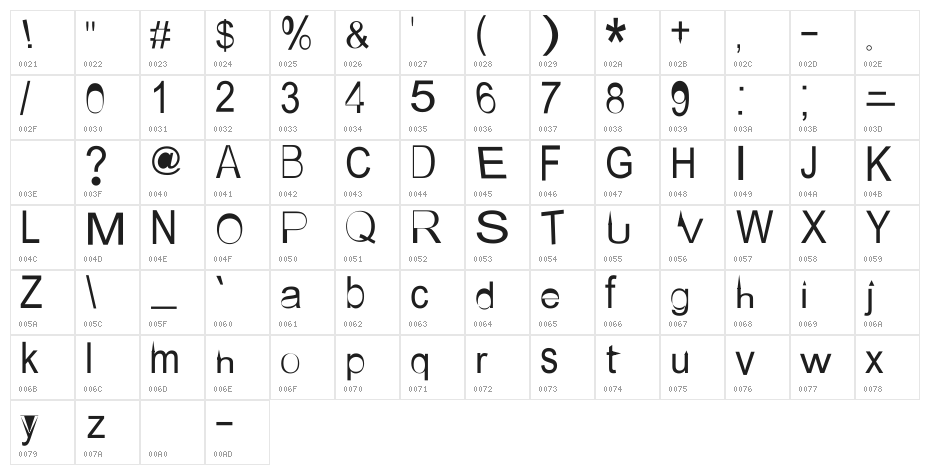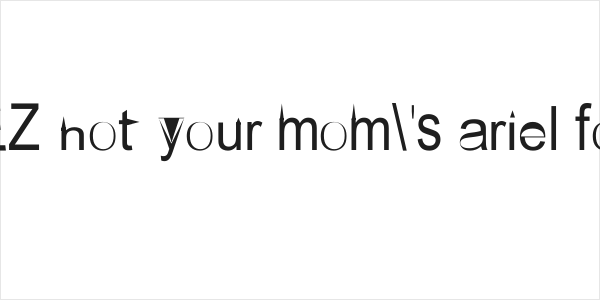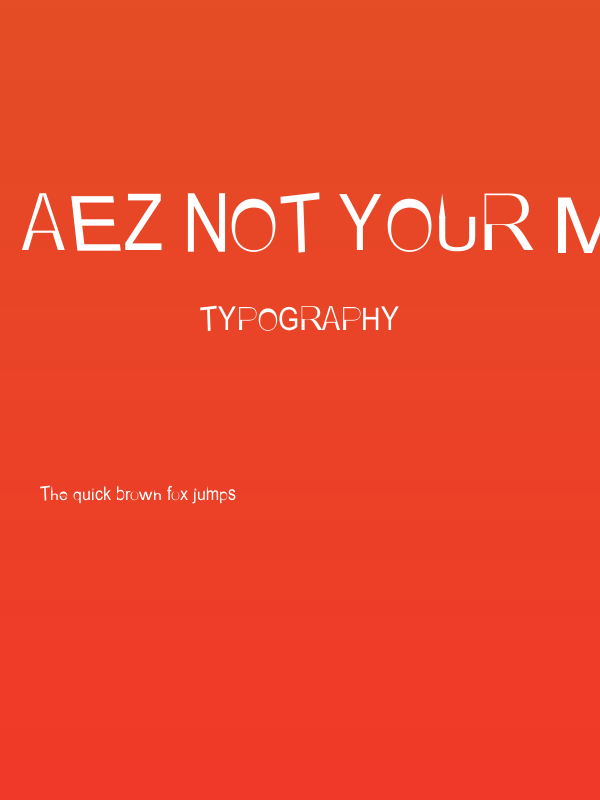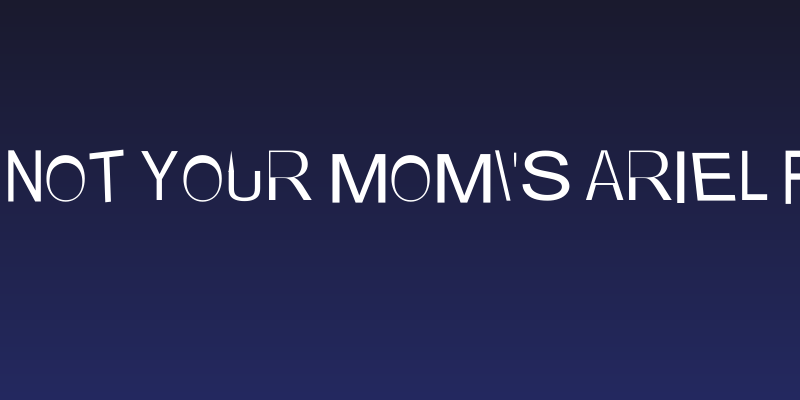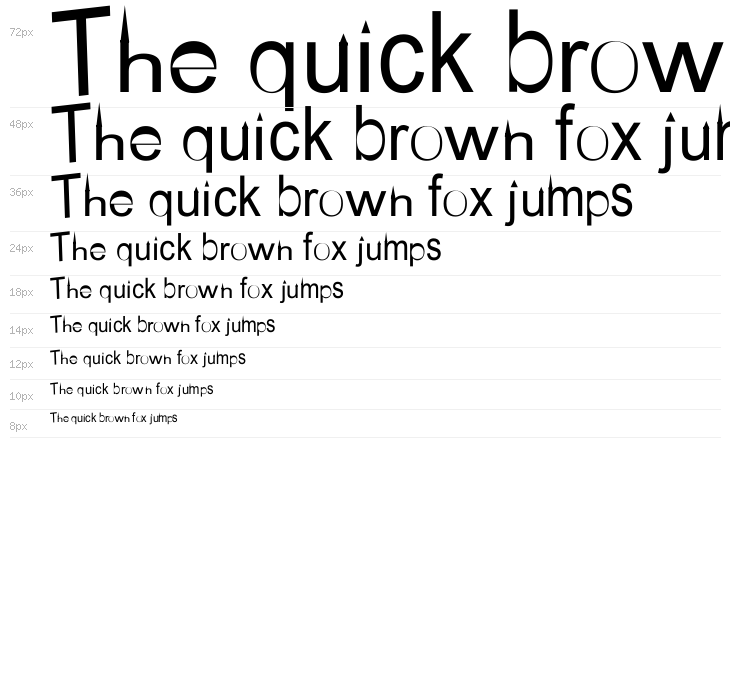
AEZ not your mom's ariel font Font
AEZ not your mom's ariel font Description
This font is a bold and modern take on traditional sans-serif styles, featuring unique and playful distortions in its letterforms. The uppercase letters exhibit a mix of sharp angles and smooth curves, creating a dynamic and eye-catching appearance. Lowercase letters maintain a consistent style, with some characters displaying exaggerated features like elongated stems or unusual curves. The numerals are equally distinctive, with bold strokes and creative shapes that make them stand out. Special characters are designed with the same playful and bold aesthetic, ensuring a cohesive look across all glyphs. This font's unique style makes it ideal for projects that require a modern and unconventional touch.